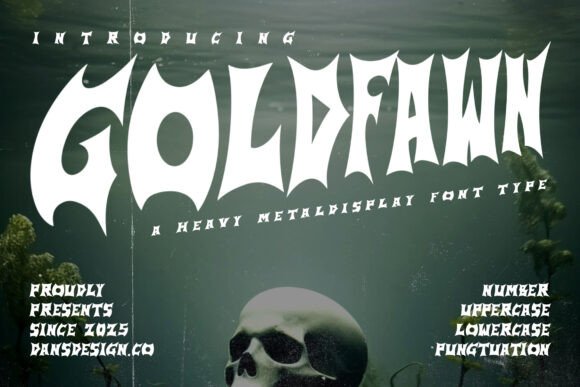
Goldfawn Font: Unleashing the Power of Bold and Edgy Typography
In the world of typography, fonts play a crucial role in conveying the tone and personality of a brand, product, or creative project. For those seeking a bold and edgy aesthetic, the Goldfawn font is an excellent choice. Inspired by the heavy metal and gothic subcultures, Goldfawn is a display font that exudes an aggressive and powerful look, making it perfect for a variety of applications, from band logos and rock album covers to horror themes, gaming designs, and rebellious branding.
Design and Characteristics
Goldfawn’s design is characterized by its sharp, jagged letterforms, which give it a distinctive and intimidating appearance. The font’s bold and condensed style creates a sense of urgency and energy, making it ideal for designs that require a strong visual impact. Each letterform is carefully crafted to convey a sense of rebellion and nonconformity, perfect for brands and projects that want to challenge the status quo.
Some of the key features of the Goldfawn font include:
- Bold and condensed style: Goldfawn’s bold and condensed design makes it perfect for headlines, titles, and short phrases.
- Sharp, jagged letterforms: The font’s sharp and jagged letterforms give it a distinctive and aggressive look.
- Aggressive and powerful look: Goldfawn’s design is perfect for creating a strong visual impact.
Use Cases for Goldfawn Font
Goldfawn’s versatility and bold aesthetic make it suitable for a wide range of applications, including:
- Band logos and rock album covers: Goldfawn’s design is perfect for bands and musicians who want to create a bold and edgy image.
- Horror themes and gaming designs: The font’s aggressive and powerful look makes it ideal for horror-themed designs and gaming projects.
- Rebellious branding: Goldfawn is perfect for brands that want to challenge the status quo and create a bold and edgy image.
Some examples of how Goldfawn can be used include:
Example 1: Band Logo
Goldfawn’s bold and edgy design makes it perfect for band logos. For example, a heavy metal band could use Goldfawn as their logo to create a bold and intimidating image.
Example 2: Rock Album Cover
Goldfawn’s design is also suitable for rock album covers. For example, a rock band could use Goldfawn to create a bold and eye-catching album cover.
Example 3: Gaming Design
Goldfawn’s aggressive and powerful look makes it ideal for gaming designs. For example, a game developer could use Goldfawn to create a bold and edgy logo for their game.
Typography Tips for Using Goldfawn Font
To get the most out of Goldfawn, here are some typography tips to keep in mind:
- Use Goldfawn sparingly: Due to its bold and edgy design, Goldfawn is best used sparingly to create a strong visual impact.
- Pair Goldfawn with contrasting fonts: Pairing Goldfawn with contrasting fonts can help to create a visually appealing design.
- Experiment with different colors: Goldfawn’s design looks great in a variety of colors, so don’t be afraid to experiment and find the perfect color scheme for your design.
In conclusion, Goldfawn is a bold and edgy display font that is perfect for making a statement. Its sharp, jagged letterforms create an aggressive and powerful look, making it ideal for a variety of applications, from band logos and rock album covers to horror themes, gaming designs, and rebellious branding. With its electrifying energy, Goldfawn is the perfect choice for designers and brands looking to create a bold and edgy image.